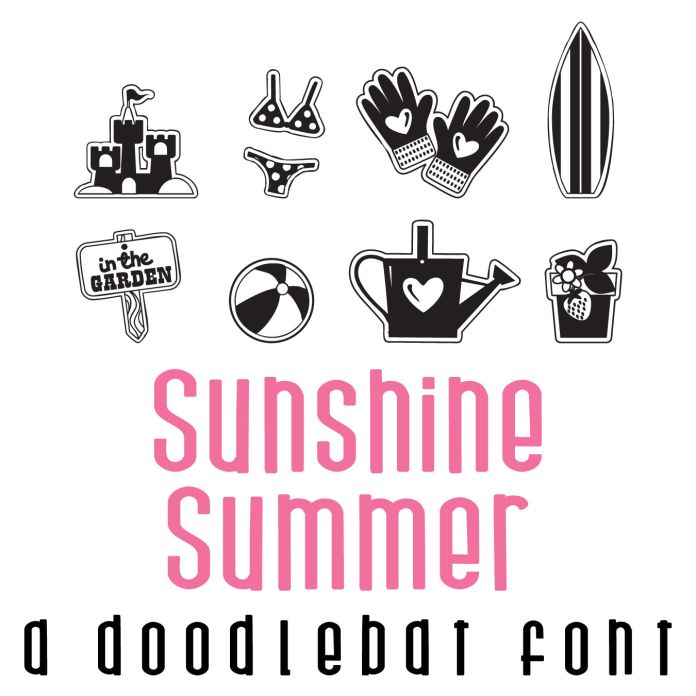
This fun doodlebat font features 26 different traveling, gardening and beach themed images. Perfect for cards, crafts, gifts, decor, scrapbook pages, planner stickers, and more!